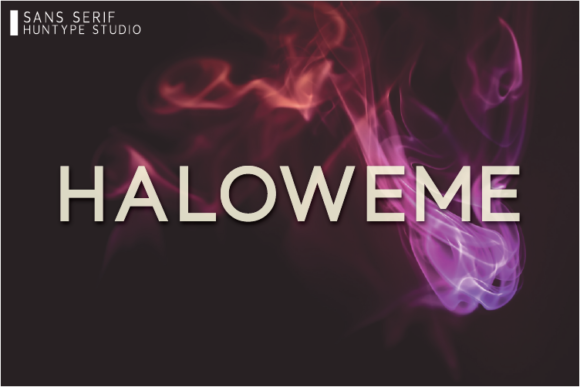
Introducing Haloweme Font, the ultimate weapon in your typographic arsenal! This minimalist sans serif font is not just a collection of letters – it's a gateway to boundless creativity. Whether you're a seasoned designer or just starting your typographic journey, Haloweme will elevate your projects to dizzying heights.
Its clean lines and understated elegance make Haloweme the perfect choice for a myriad of applications. From sleek packaging designs that demand attention to eye-catching headlines that cut through the noise, Haloweme empowers you to create a visual impact that lingers in the minds of your audience.
But don't just take our word for it. Unleash your imagination and witness the transformative power of Haloweme firsthand. See how effortlessly it complements your designs, adding a touch of sophistication and timeless appeal. It's the font that will make your creations shine brighter than ever before.
With Haloweme by your side, you'll be the envy of the design world. Its versatility knows no bounds, making it the font of choice for everything from branding and marketing materials to website design and social media campaigns.
So why settle for ordinary when you can have extraordinary? Embark on a typographic adventure with Haloweme Font today and let your creativity soar to unprecedented heights. Its crisp edges and graceful curves will captivate your audience, leaving them spellbound by your design prowess.